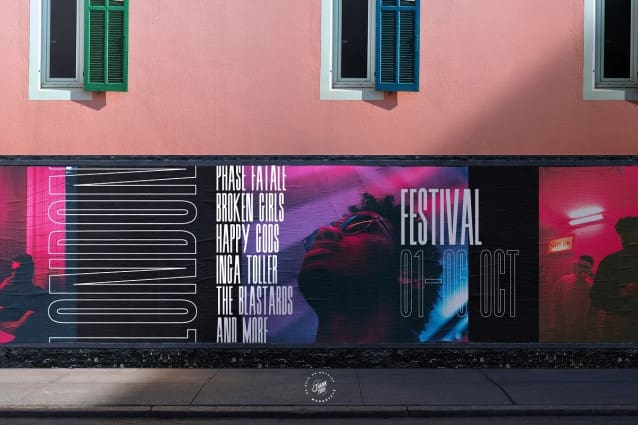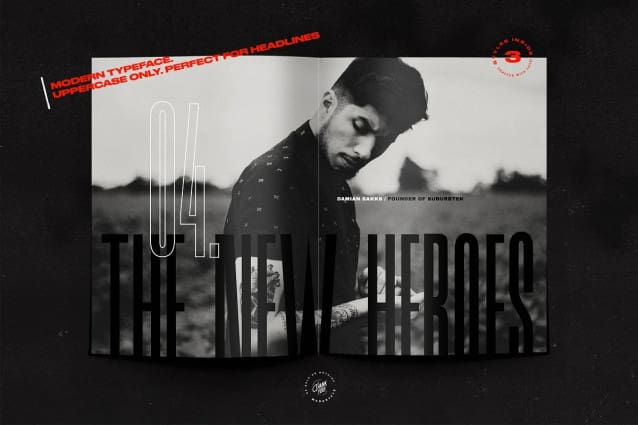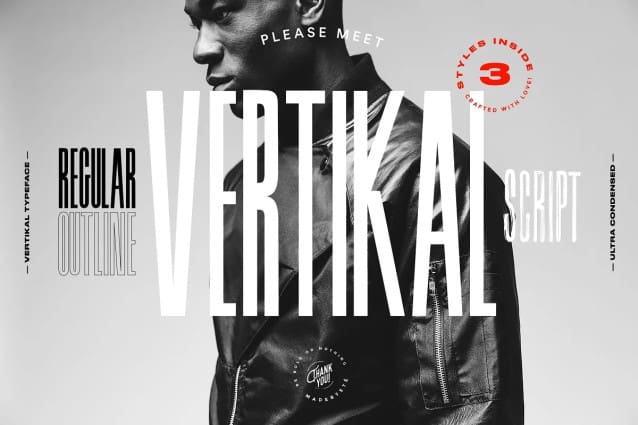
Vertikal Font
Vertikal Font, a tall condensed sans serif font coming in 3 styles. It’s a memorable, strong and elegant typeface. You can mix and match the Outline and the Regular style to create something very fresh and modern. The Brush Script is the bad boy of the collection but still very classy.